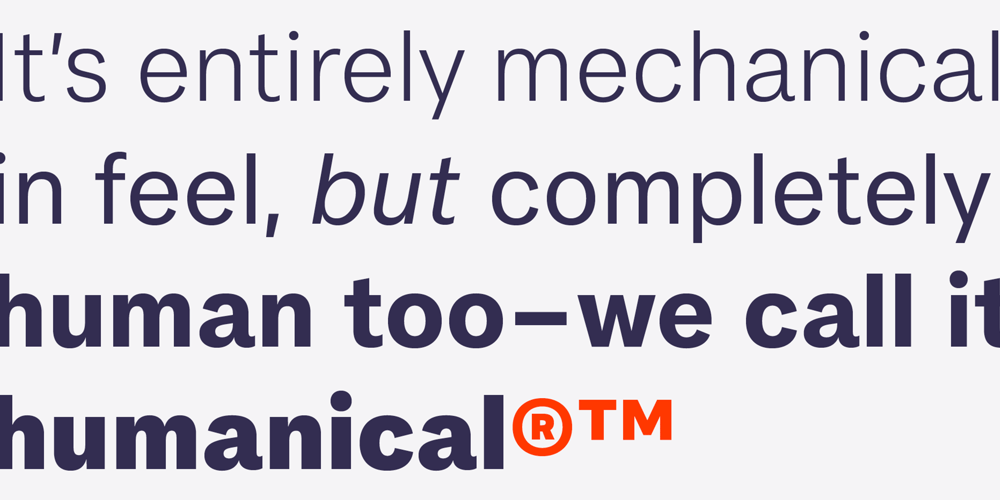
FS Koopman Font Family was designed by Andrew Lethbridge, Stuart De Rozario and published by Fontsmith. FS Koopman contains 14 styles and family package options. FS Koopman is a hard-working typeface. A crossbred workhorse that draws on inspiration from Swiss grotesks, American gothics and early British grotesques. It refuses to fit neatly into any of these categories, it’s neither one nor the other, but all of the above. It’s kinda Swiss meets American… (but with a slight Yorkshire twang).